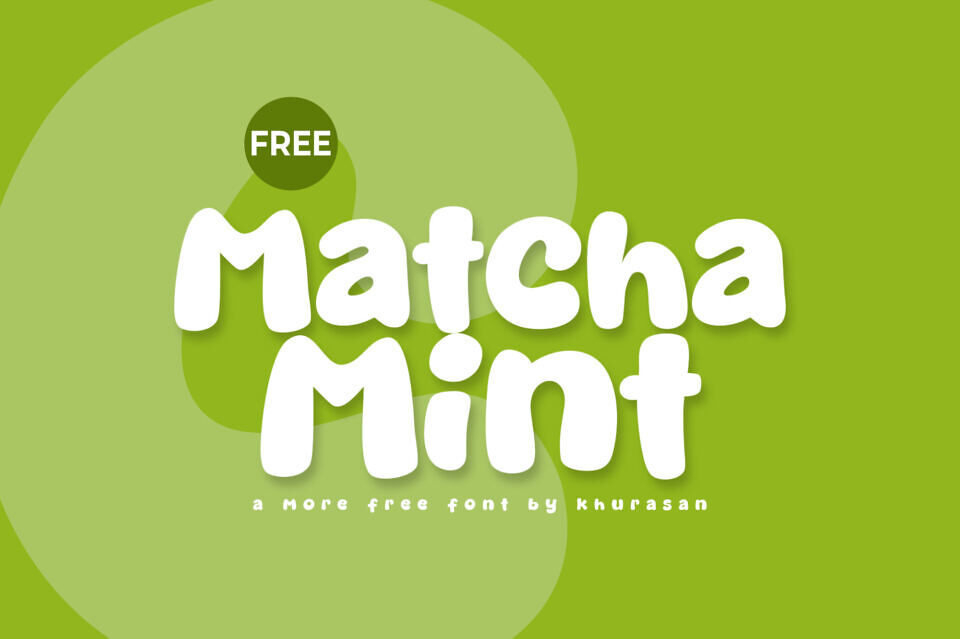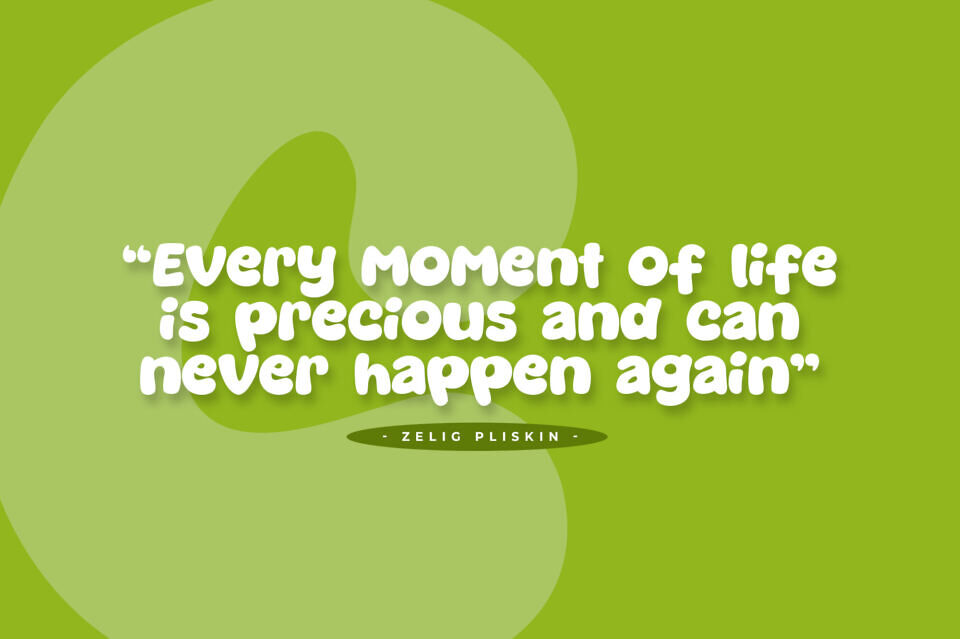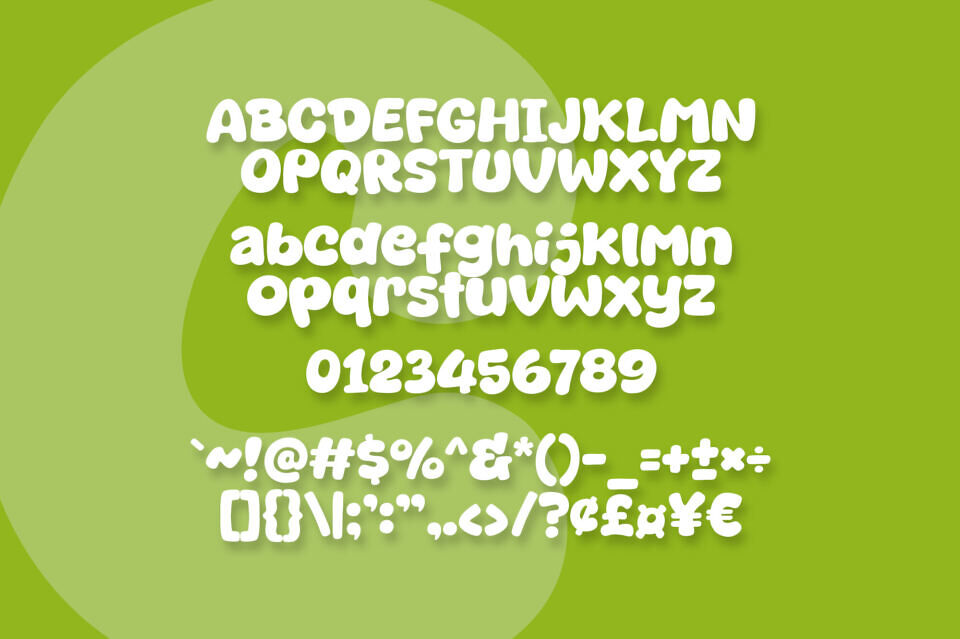
Matcha Mint is a bold, playful, and bubbly display font designed by Khurasan. It features ultra-rounded, organic letterforms with a cheerful, hand-drawn aesthetic that brings a friendly energy to any project.
The typeface includes a complete set of uppercase and lowercase letters, numbers, and an extensive selection of punctuation and currency symbols. Its heavy, high-impact style makes it perfect for children’s designs, creative branding, merchandise, packaging, and catchy social media graphics.